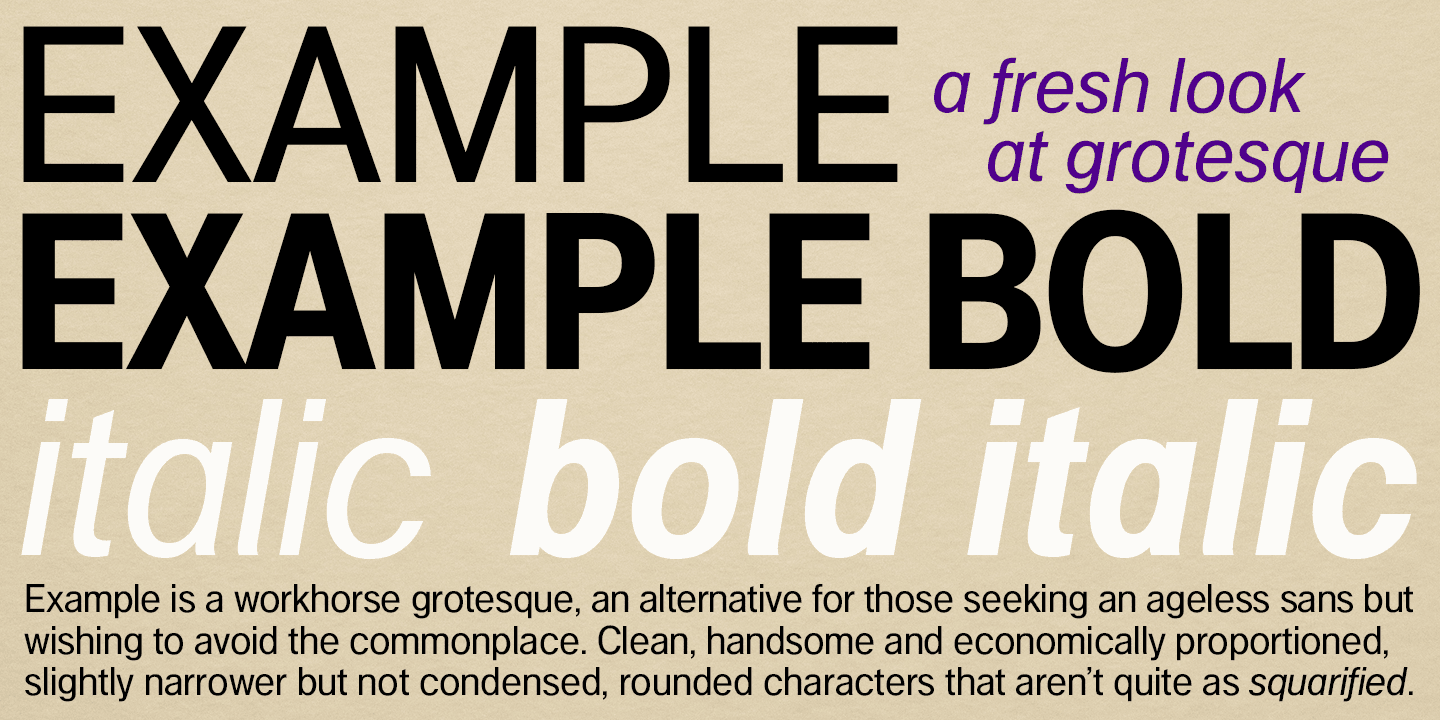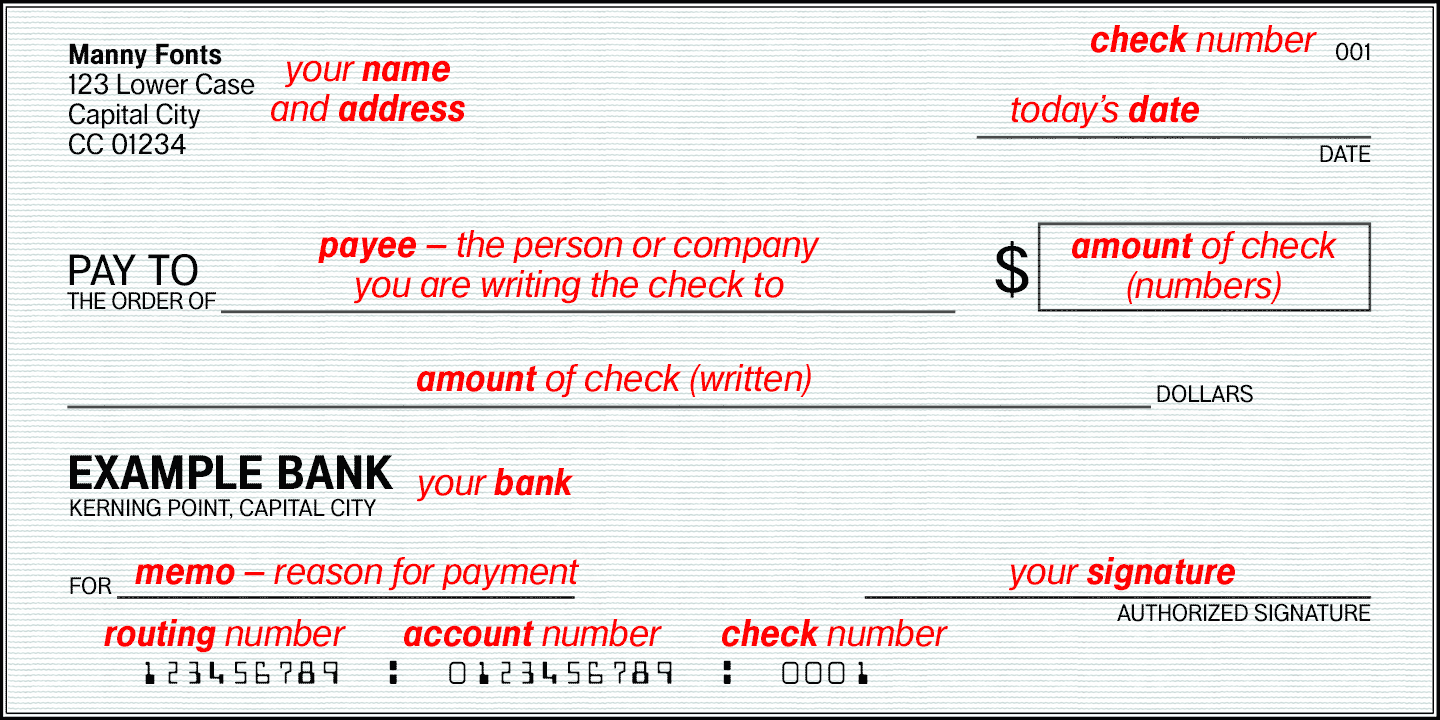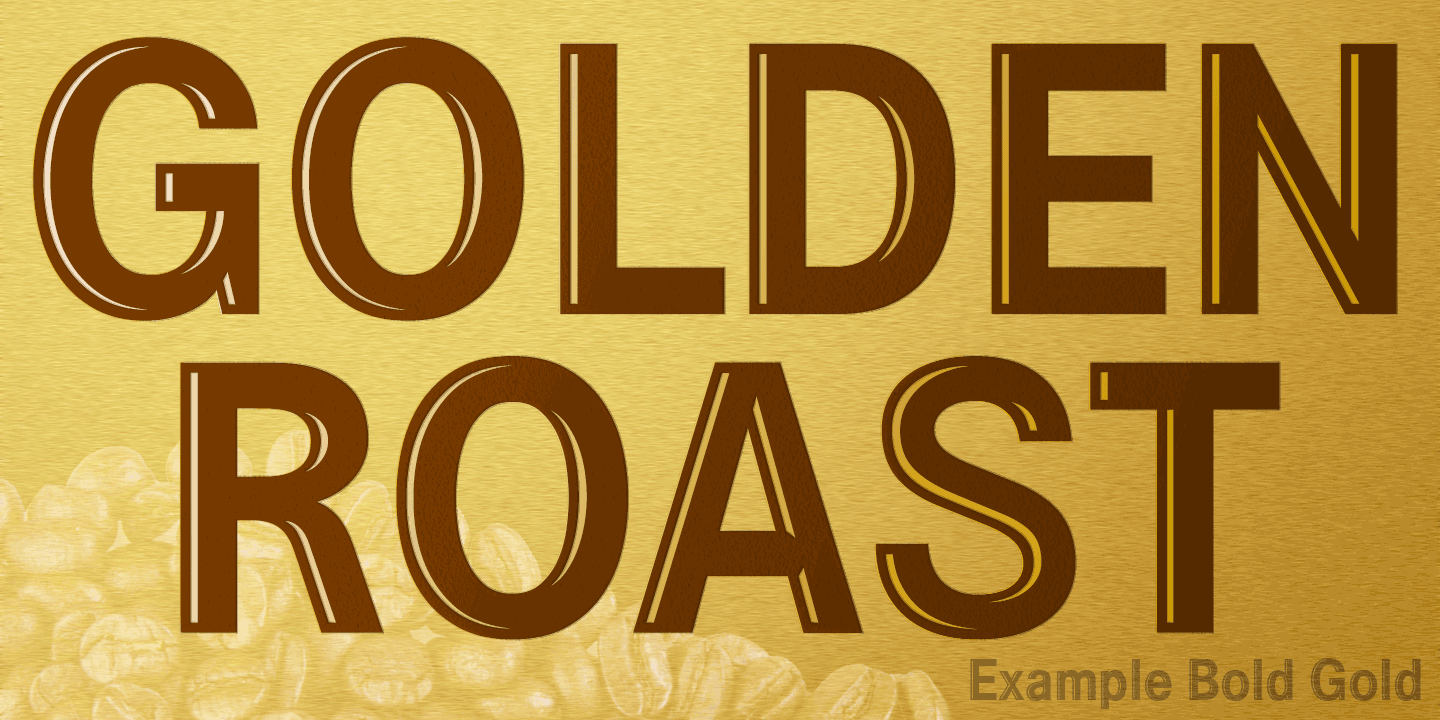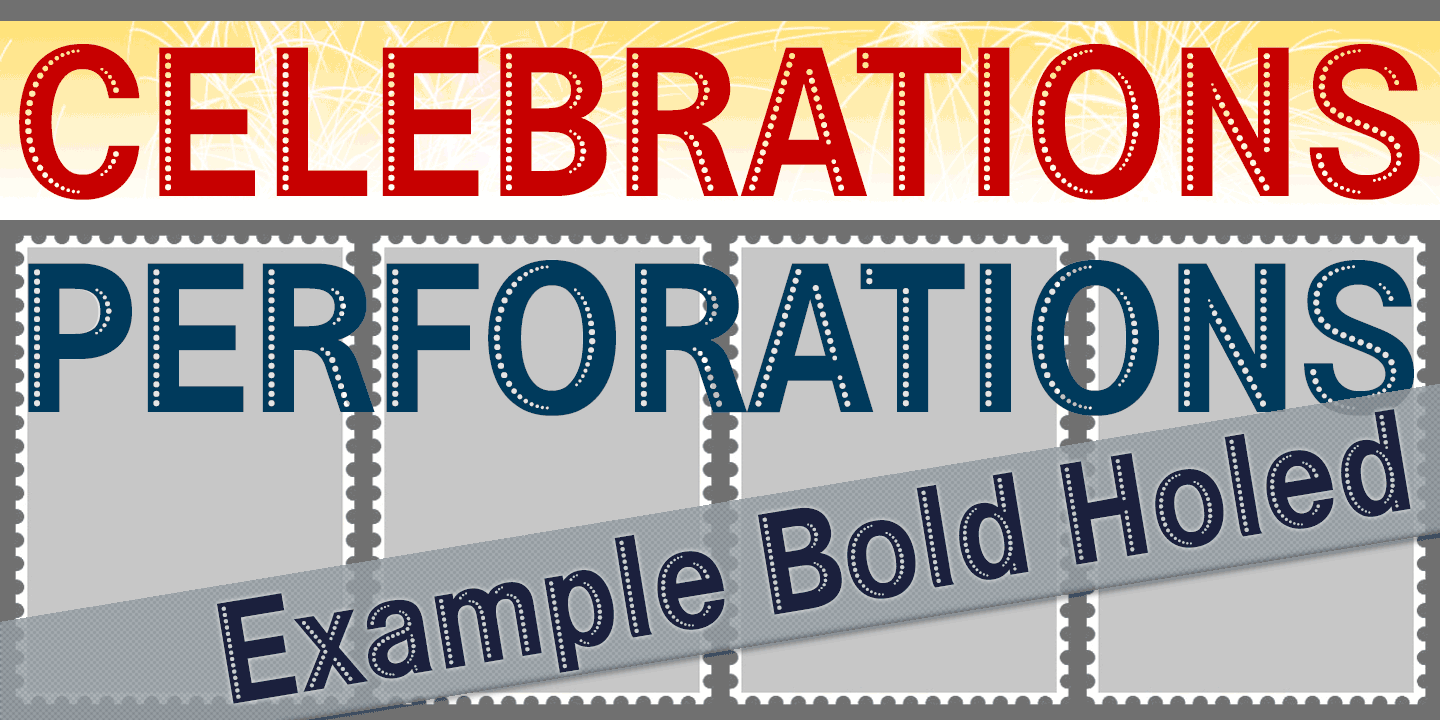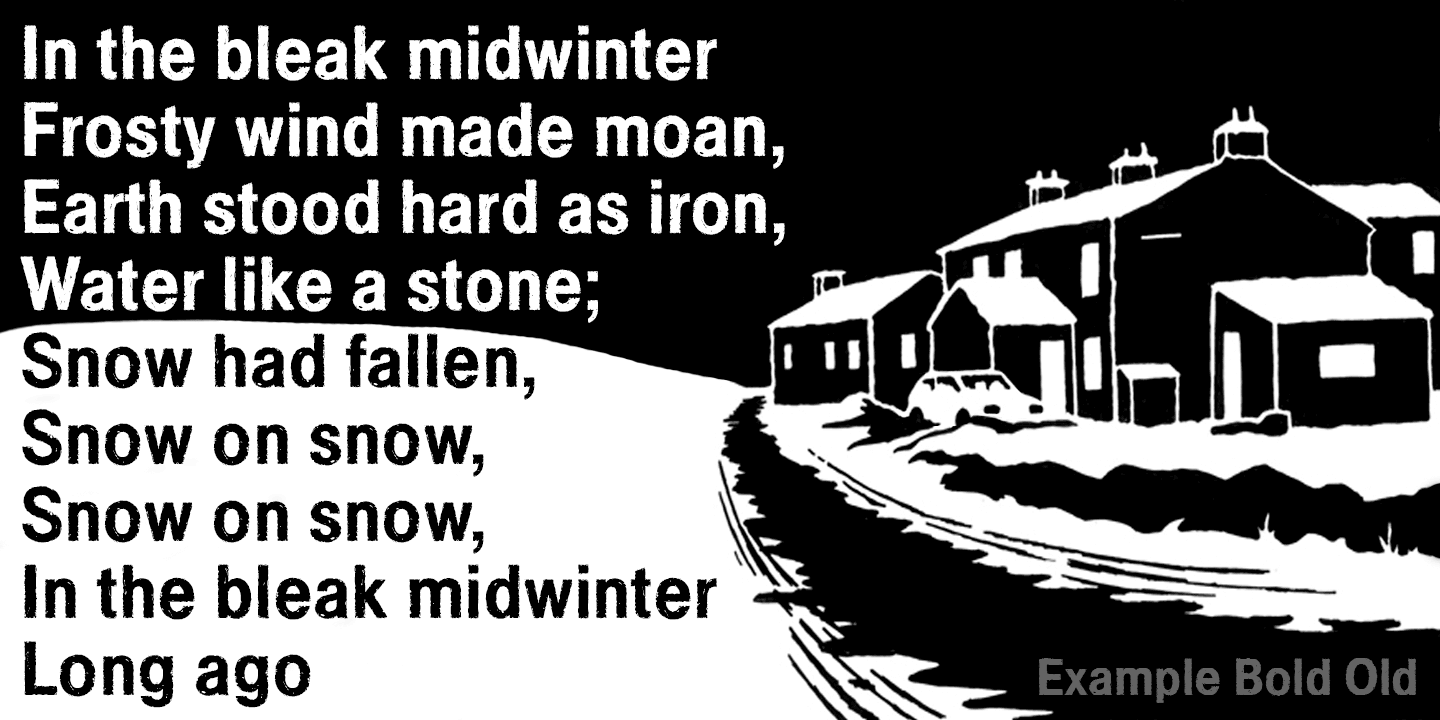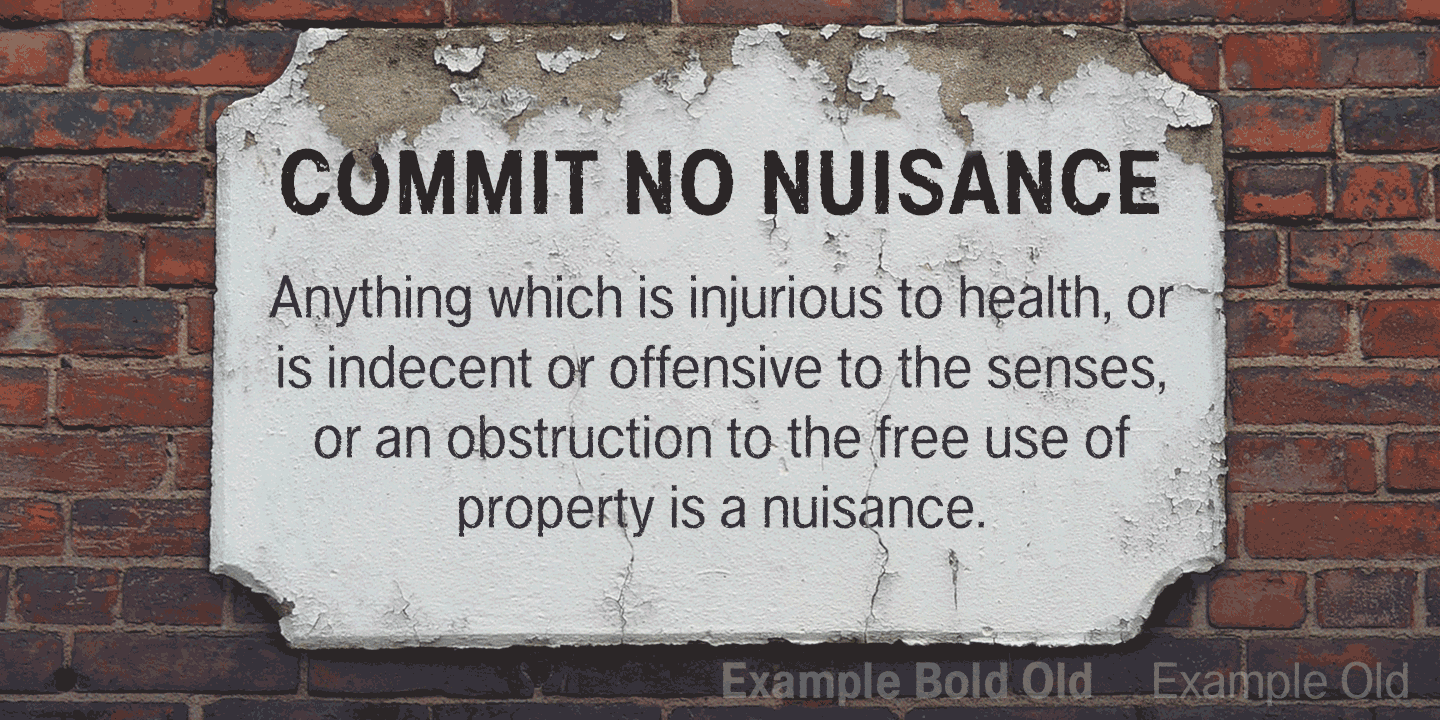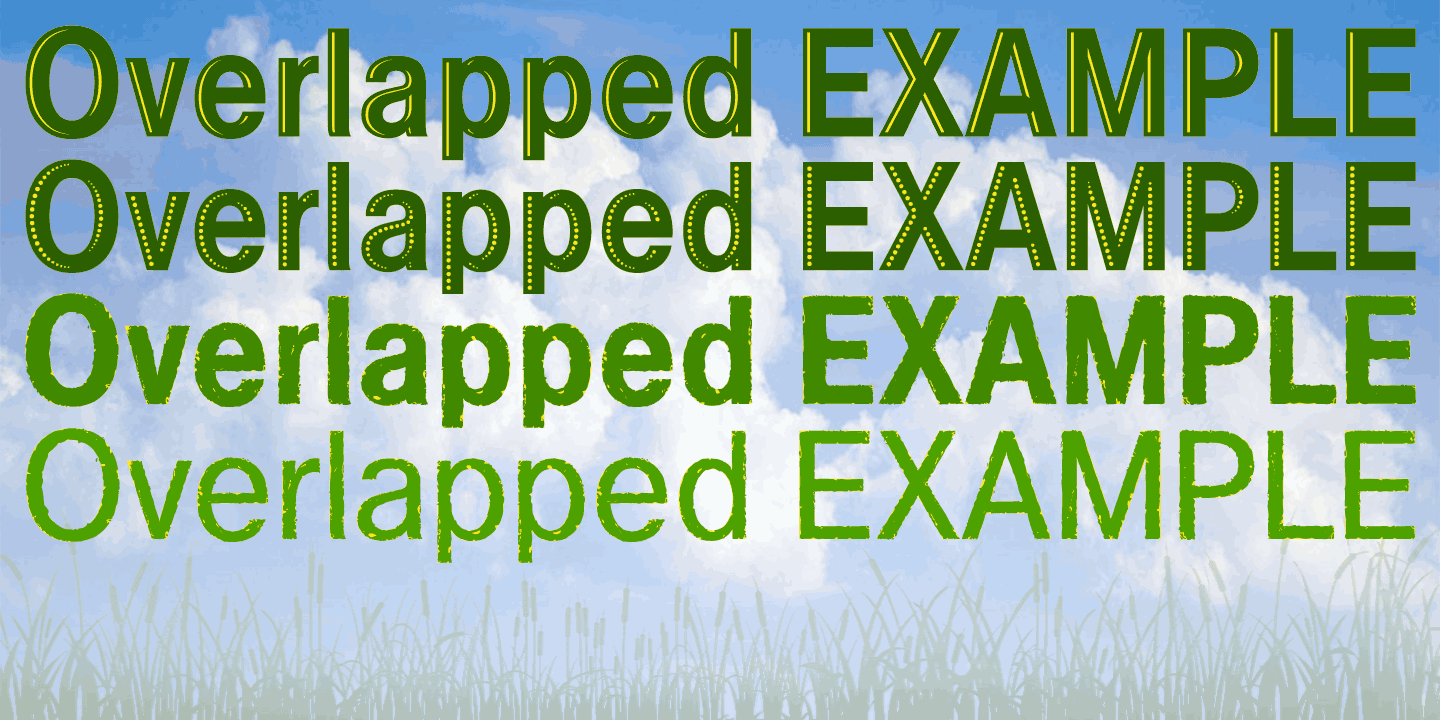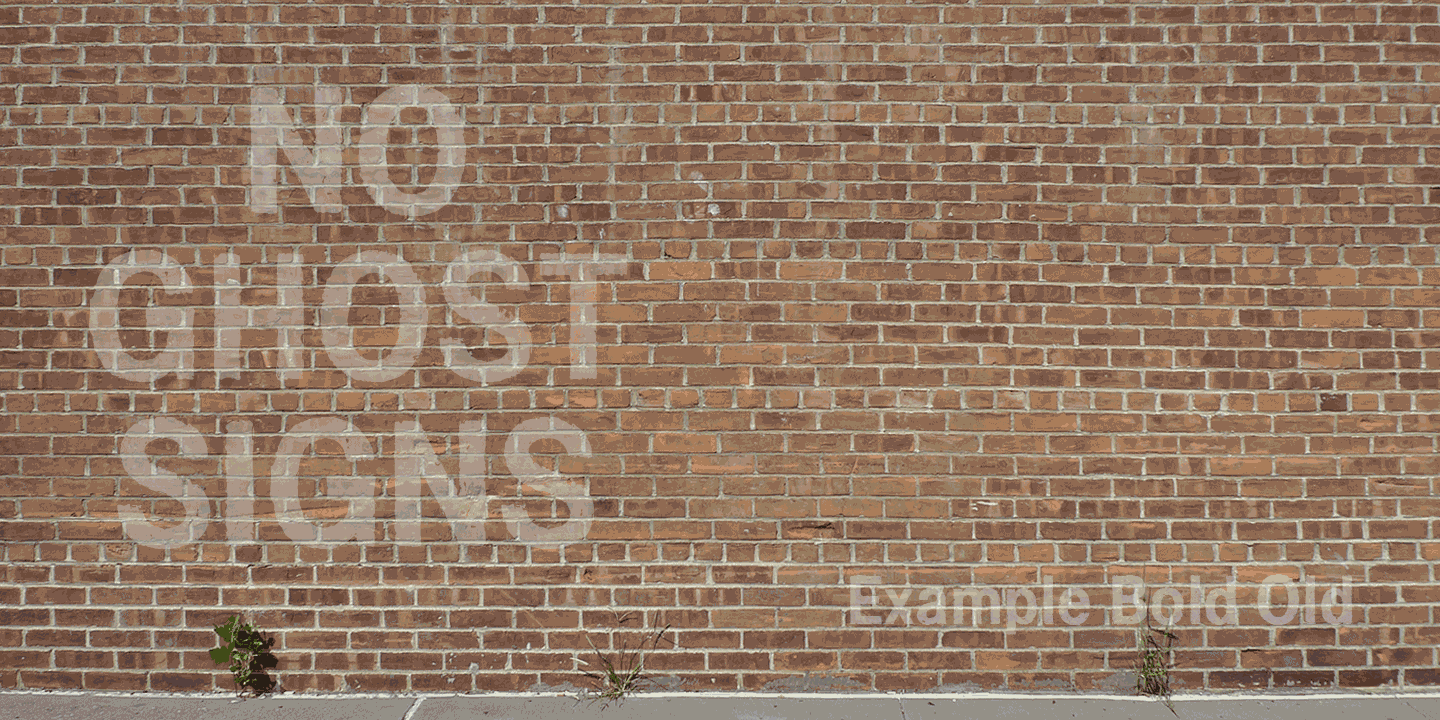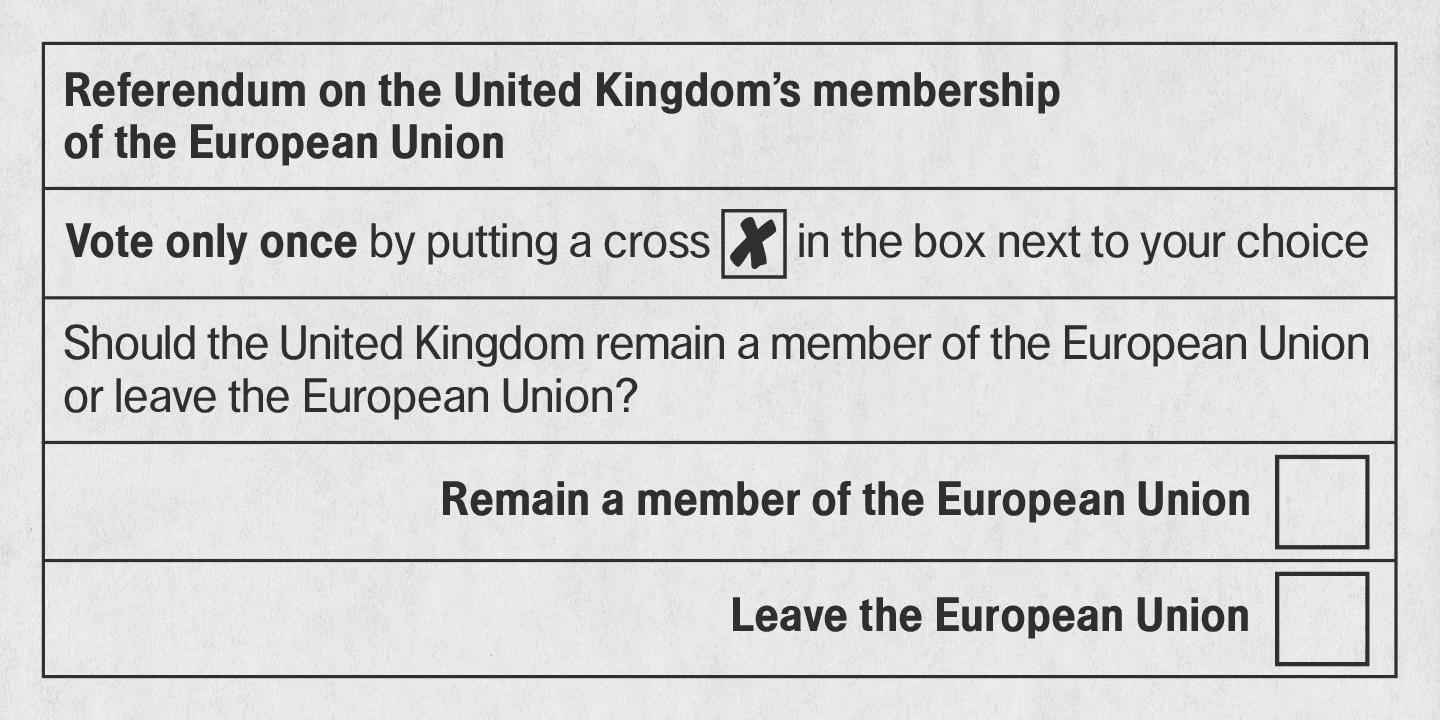
Example
Font Family by K-Type
Example is a workhorse neo-grotesque, an alternative for those seeking an ageless sans but wishing to avoid the ordinary choices. The basic weights are clean, handsome and economically proportioned - characters are not as wide as Helvetica, though not condensed. Rounded characters are not as 'squarified'.
Numerals are the same height as capitals, so titles and headlines line up efficiently. The lowercase L has a slightly curved foot which distinguishes it from the uppercase i and matches the vestigial tail of the a. The Italics feature a single-storey a and an f with descender hook, otherwise italic characters are optically corrected obliques. Example has a full complement of Latin Extended-A characters, Welsh diacritics and Irish dotted consonants.
In addition to the basic family - Regular, Bold, Italic and Bold Italic - four additional display fonts are included. Three are novelty variations of the Bold weight, designed for decorative and celebratory headings: "Bold Gold" is an inline font that suggests shiny highlights, "Bold Holed" replaces the inline with dots reminiscent of string lights or Aboriginal paintings, and "Bold Old" has rough outlines giving an antique, weathered appearance. These three fonts share the spacing and kerning of Example Bold so can be overlapped for bicolor effects. Also included is "Example Old", a rough version of the regular weight with matching spacing and kerning.